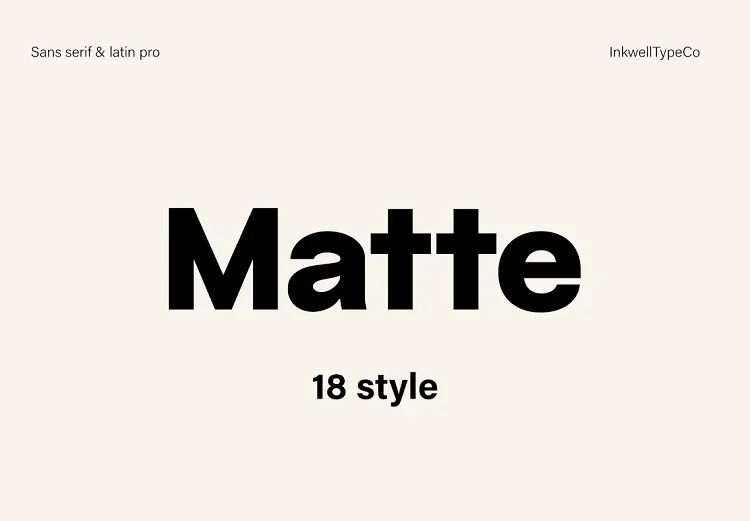
Matte Font Family
Matte is a contemporary sans serif font family that combines boldness with a clean, modern design. Its clarity and simplicity make it an incredibly versatile choice, suitable for a wide variety of applications. Whether you’re designing for digital media, print, or branding, Matte’s sleek and straightforward style ensures it can adapt seamlessly to different projects.
The font’s modern aesthetic and strong presence make it ideal for everything from logos and headlines to body text and user interfaces. Its flexibility allows it to maintain readability and visual appeal across various contexts, making it a reliable choice for designers seeking both functionality and style.